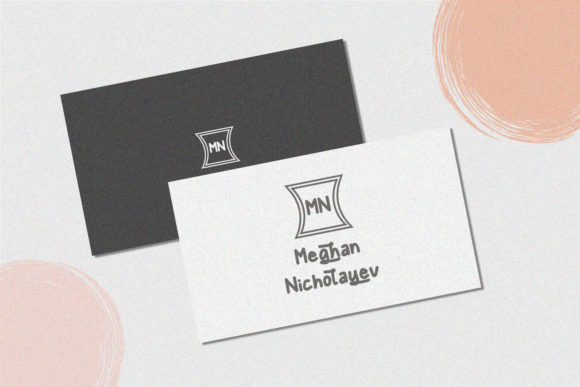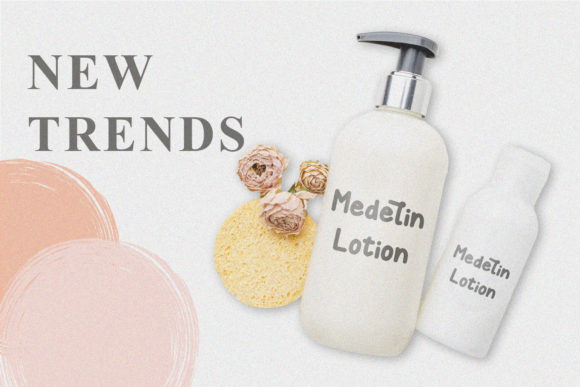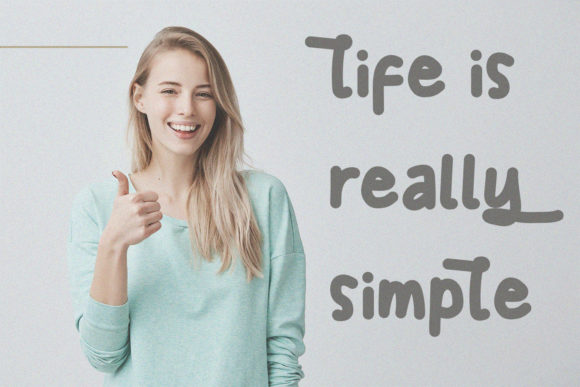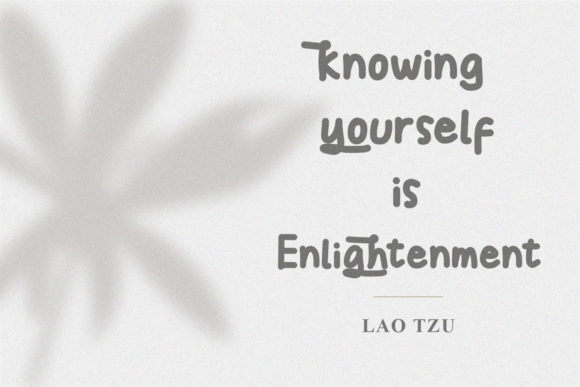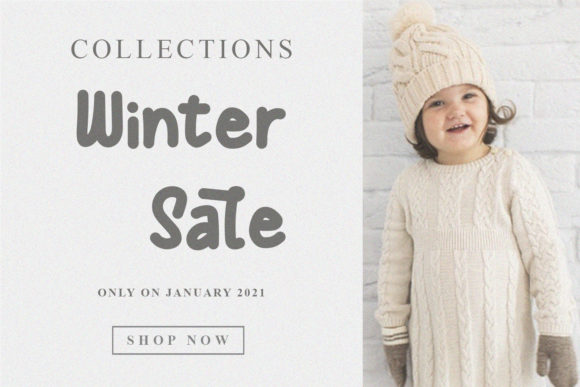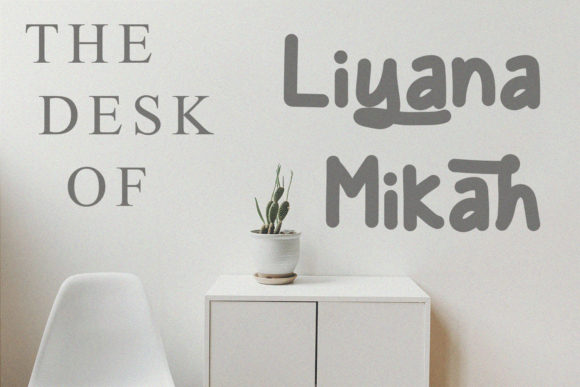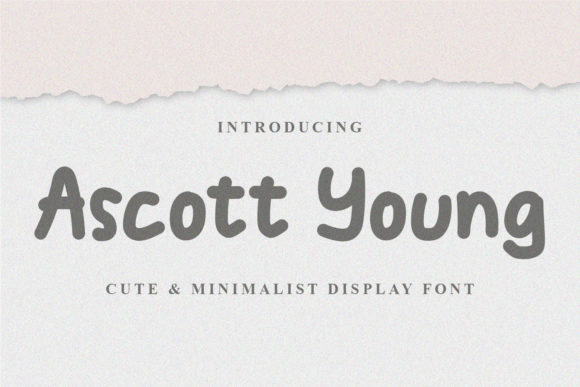
Discover the Charm of Ascott Young Font: A Cute and Minimalist Brushed Display Font
In the world of typography, fonts play a crucial role in conveying the tone and personality of a design. For designers and crafters looking for a font that exudes cuteness and minimalism, Ascott Young Font is an excellent choice. This brushed display font is perfect for a variety of creative projects, from cartoon-related designs to children’s games, quotes, titles, brand names, book covers, posters, and more.
What Makes Ascott Young Font Special?
Ascott Young Font is a unique and charming font that boasts a distinctive brushed style, giving it a soft and delicate appearance. Its minimalist design makes it versatile and easy to pair with other fonts, ensuring that your design stands out without being overwhelming. The font’s cuteness factor is undeniable, making it an ideal choice for projects targeting a younger audience or those that require a touch of whimsy.
Key Features of Ascott Young Font
- Cute and Minimalist Design: Ascott Young Font features a charming, hand-brushed style that adds a touch of elegance and sophistication to any design.
- Versatility: This font is perfect for a wide range of applications, including cartoon-related designs, children’s games, quotes, titles, brand names, book covers, posters, and more.
- Ease of Use: Ascott Young Font is easy to read and pairs well with other fonts, making it simple to incorporate into your design.
- High-Quality: The font is designed with high-quality craftsmanship, ensuring that it looks great in any size or application.
Use Cases for Ascott Young Font
Ascott Young Font is an incredibly versatile font that can be used in a variety of creative projects. Here are some use cases to inspire you:
- Cartoon-Related Designs: Add a touch of cuteness to your cartoon characters, logos, or posters with Ascott Young Font.
- Children’s Games: Create engaging and fun game titles, menus, or instructions with this charming font.
- Quotes and Titles: Use Ascott Young Font to add a touch of elegance and sophistication to your quotes, titles, or headings.
- Brand Names: Create a unique and memorable brand identity with this distinctive font.
- Book Covers: Add a touch of whimsy and charm to your book covers, making them stand out on bookshelves.
- Posters: Create eye-catching posters for events, promotions, or advertisements with Ascott Young Font.
Tips for Using Ascott Young Font Effectively
To get the most out of Ascott Young Font, here are some tips to keep in mind:
- Pair with Other Fonts: Experiment with pairing Ascott Young Font with other fonts to create a unique and visually appealing design.
- Use in Moderation: While Ascott Young Font is cute and charming, using it in moderation can help avoid overwhelming your design.
- Adjust Font Size: Experiment with different font sizes to find the perfect balance for your design.
- Play with Colors: Try out different colors to find the perfect match for your Ascott Young Font design.
Ascott Young Font is a charming and versatile brushed display font that is perfect for designers and crafters looking to add a touch of cuteness and minimalism to their designs. With its ease of use, high-quality craftsmanship, and versatility, this font is an excellent choice for a wide range of creative projects. Whether you’re working on cartoon-related designs, children’s games, quotes, titles, brand names, book covers, posters, or more, Ascott Young Font is sure to bring a touch of beauty and whimsy to your creations.